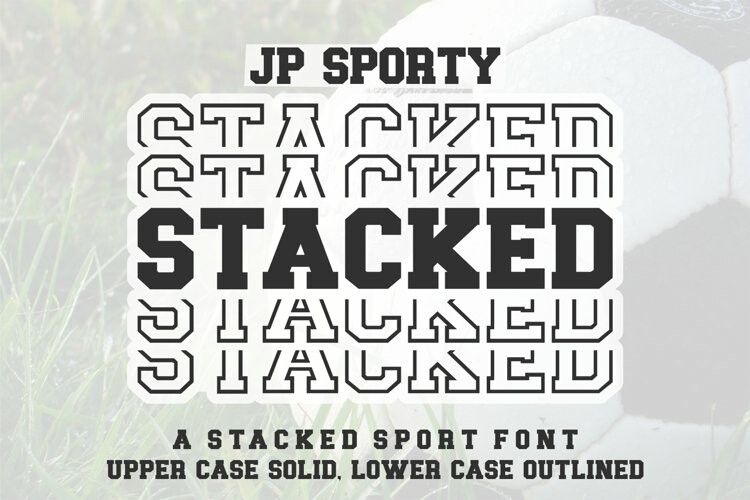
Jp Sporty Stacked Font
Jp Sporty Stacked FontJP Sporty Stacked font is two fonts in one. Use upper case to get solid letters and lower case to get outlined letters.